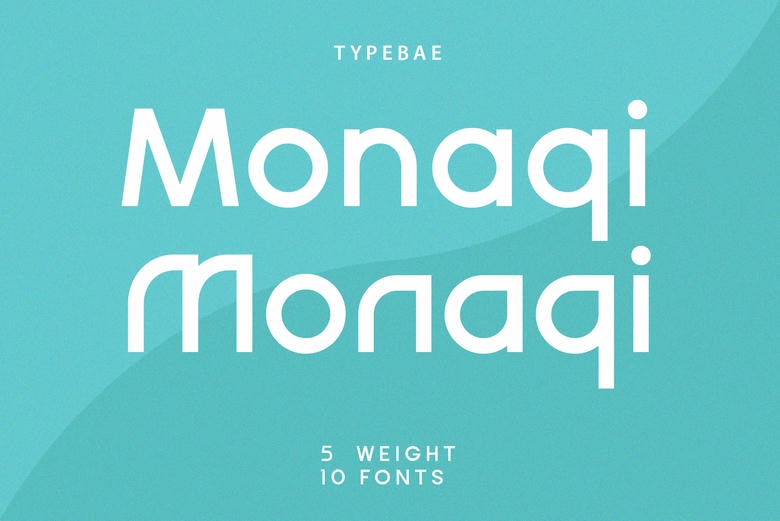
Monaqi Font
Hello, this time we want to introduce a new product. Monaqi is a clear and multifunctional san serif font. Can be used as a plain text font, stylish title or logo, very useful for your various project needs. The free version provides all uppercase and lowercase letters and a few special characters too.
Monaqi Sans Serif Font